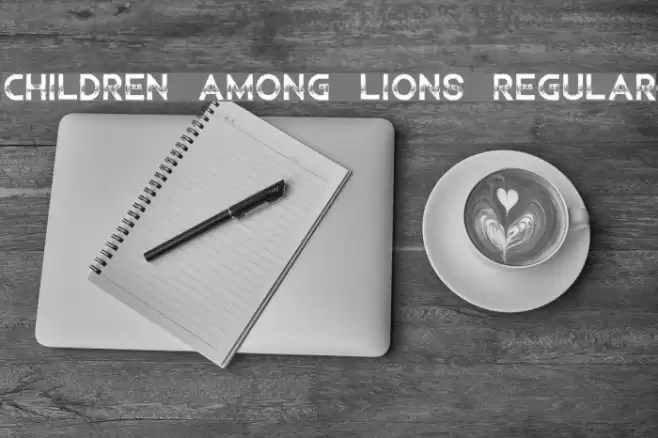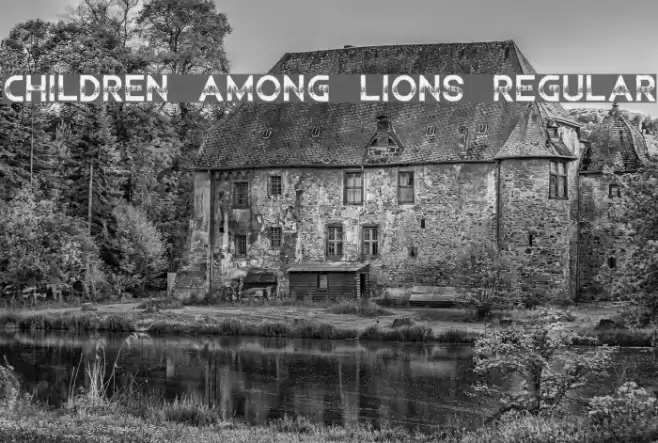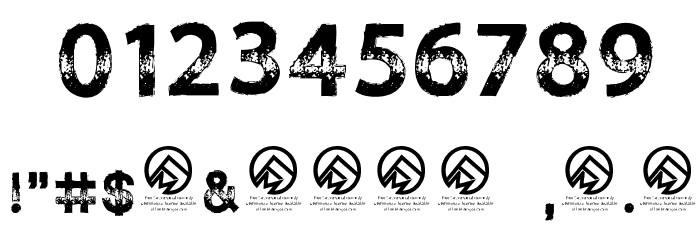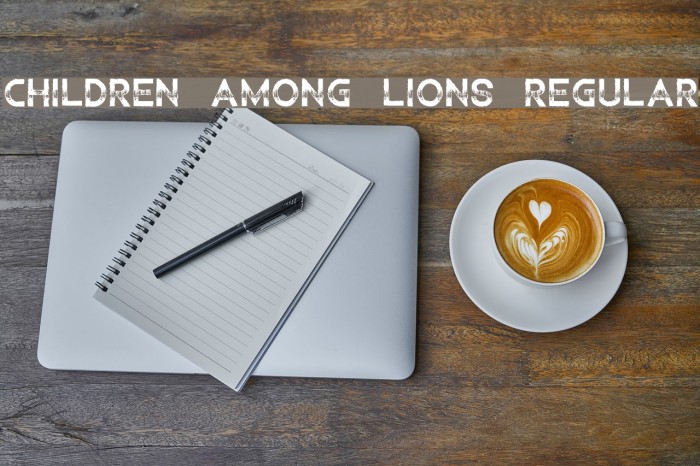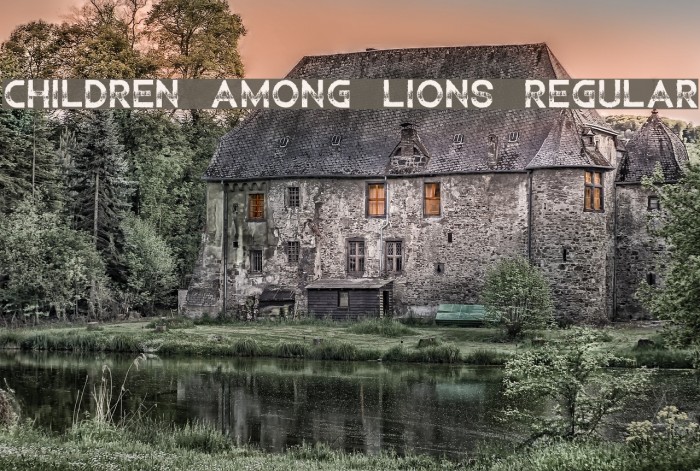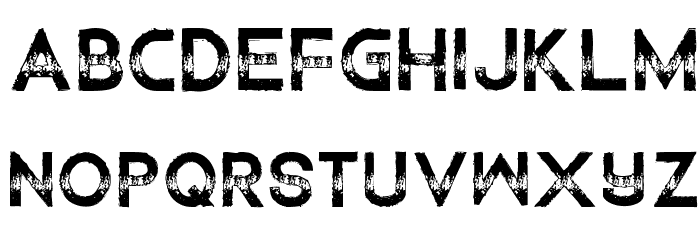
Children Among Lions Regular Font
Children Among Lions Regular Description
This font features a distressed, grunge style with a textured appearance that gives it a rugged and worn look. The characters are bold and uppercase, with a rough, uneven surface that suggests a sense of age and weathering. The font's unique aesthetic makes it stand out, with each letter appearing as if it has been stamped or printed with a worn-out ink pad. The numbers and special characters maintain this distressed look, ensuring consistency across all elements. This font is ideal for projects that require a bold, eye-catching design with a vintage or rebellious edge.
A bold, distressed font with a grunge, textured appearance from Distorted Eroded fonts.
- Proposed Projects: Ideal for album covers, posters, urban-themed designs, and branding that requires a rugged, vintage look.
- Overall Style: Grunge, Vintage